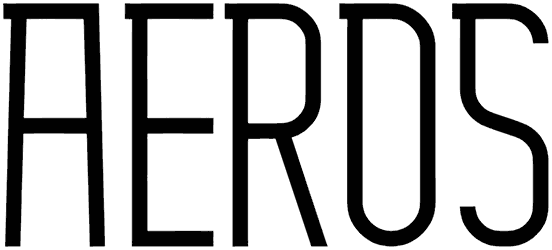
Mechanist Mounted Font
Create a strong and futuristic layout and invite lovers of this style. This techno font, with its ultra-large and geometric letters, has a unique and technical vibe. Even if there is no offer for lowercase letters and numbers, Mechanist Mounted can be a perfect show for many novel designs like sports posters, games, match graphics, and more.